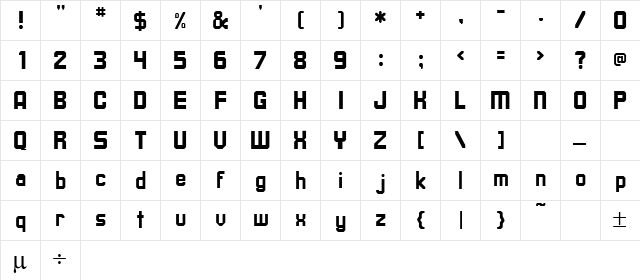
Rosehill Bold Regular
Design Context for Rosehill Bold Typeface
Rosehill Bold offers clean, dependable letterforms without strong stylistic allegiance, making it a practical choice for designers who need flexibility. Its bold stroke weight gives it real presence on the page.